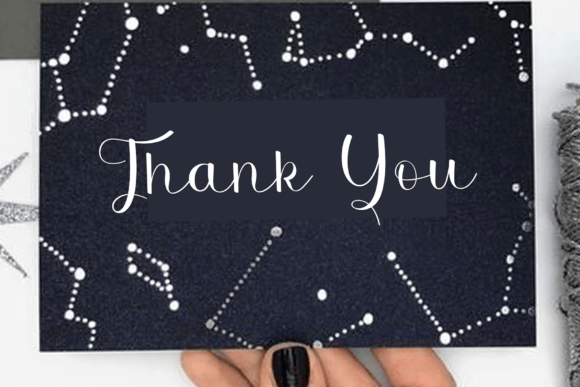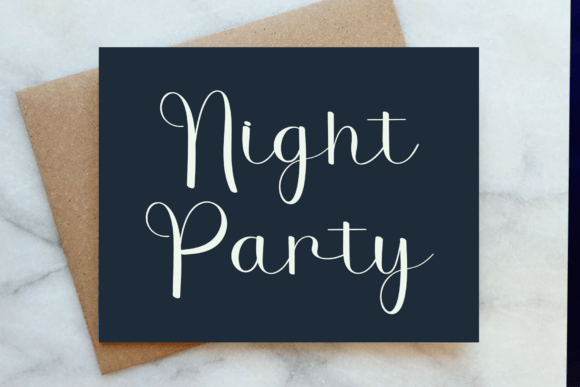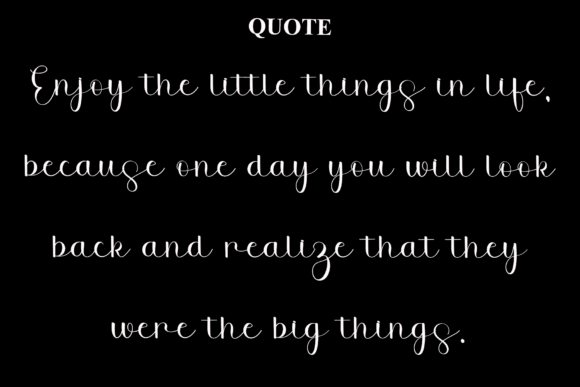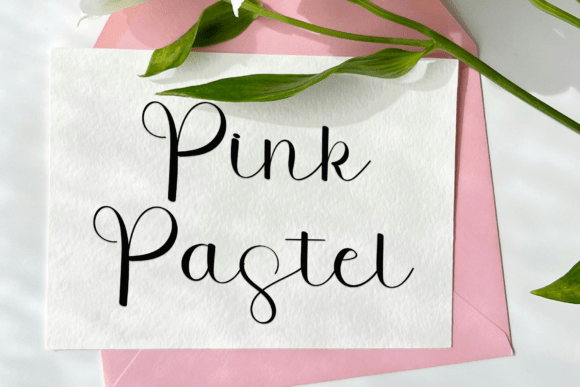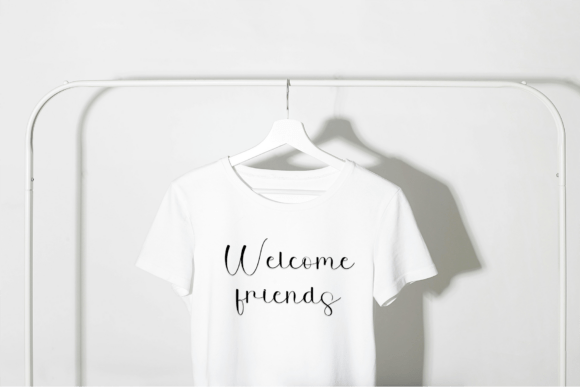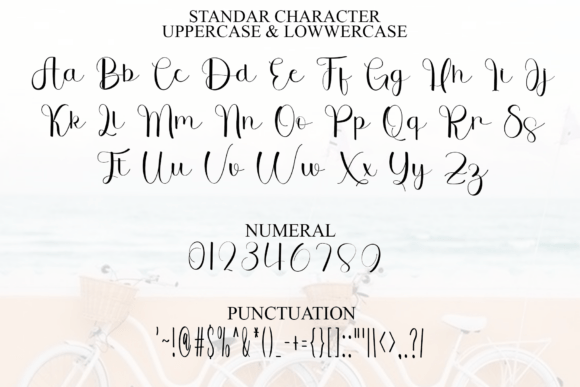
The Magic of Holiday Typography
It’s that time of the year when creativity knows no bounds, and the air is filled with the spirit of giving and sharing. As designers, we’re always on the lookout for the perfect font to capture the essence of the holiday season. And that’s where the Almond Butter Font comes in – a festive and merry typeface that embodies the joy and magic of this special time of the year.
With its decorative elements and whimsical flair, the Almond Butter Font adds a touch of enchantment to your designs, making it perfect for greeting cards, gift tags, and holiday-themed projects. Whether you’re creating a festive holiday card or a gift tag with a personal touch, this font brings a cheerful and nostalgic ambiance to your words.
As a designer, you know how valuable a great font can be in elevating your designs. And with the Almond Butter Font, you can create truly unforgettable holiday projects that shine with the magic of the season.
Almond Butter Font Key Features
- Font Family: Almond Butter Font is a unique, hand-drawn script font with a warm and inviting feel.
- Font Size: The font is designed to work well in a range of sizes, from 8pt to 72pt, with optimal results at 12pt to 48pt.
- Unique Characteristics: The Almond Butter Font features a range of ligatures, swashes, and alternates to add personality and flair to your designs.
- Font Weight: Available in Regular, Bold, and Italic weights to provide flexibility in your design choices.
Almond Butter Font Review
Overall, I think the Almond Butter Font has some great qualities that make it a unique addition to any design project. ✨ One of the things I appreciate about this font is its quirky, hand-drawn feel. It’s perfect for adding a touch of whimsy to any text.
Another advantage of this font is its versatility. ✨ It works well in a variety of contexts, from headings and titles to body text and even logos. I also appreciate the wide range of weights and styles available, which makes it easy to create a cohesive look across different design elements.
While the Almond Butter Font has its strengths, there are a few limitations to consider.
- ⚠️ Limited character set: The font is missing some common characters and glyphs, which may limit its use in certain contexts.
- ⚠️ Not suitable for small text: Due to its quirky, hand-drawn feel, the font can be difficult to read at small sizes. This may limit its use in certain design applications.
In conclusion, I think the Almond Butter Font is a fun and creative addition to any design project. While it has some limitations, its unique feel and versatility make it a great choice for the right project. With a little creativity and planning, this font can add a lot of personality and interest to your designs.
Common use cases for Almond Butter Font include:
- Crafting elegant headlines and titles.
- Adding a touch of sophistication to business presentations.
- Creating eye-catching social media graphics.
For optimal results, use Almond Butter Font in conjunction with high-quality images and a clear, concise message.
Alternatives to Almond Butter Font for Designers
Great Vibes Font is a beautiful, handwritten font perfect for adding a touch of elegance and sophistication to your designs. It’s ideal for use in wedding invitations, quotes, and other creative projects where a unique, handwritten feel is desired. Great Vibes Font is similar to Almond Butter Font in its flowing, cursive style, but it has a more refined and polished look.
Pacifico Font is a beautiful, modern script font that’s perfect for adding a touch of warmth and personality to your designs. It’s ideal for use in branding, packaging, and advertising projects where a friendly and approachable feel is desired. Pacifico Font is similar to Almond Butter Font in its relaxed, casual style, but it has a more streamlined and sophisticated look.
Carolyna Pro Font is a beautiful, elegant script font that’s perfect for adding a touch of sophistication and refinement to your designs. It’s ideal for use in high-end branding, packaging, and advertising projects where a luxurious and exclusive feel is desired. Carolyna Pro Font is similar to Almond Butter Font in its flowing, cursive style, but it has a more refined and polished look, making it perfect for use in high-end designs.